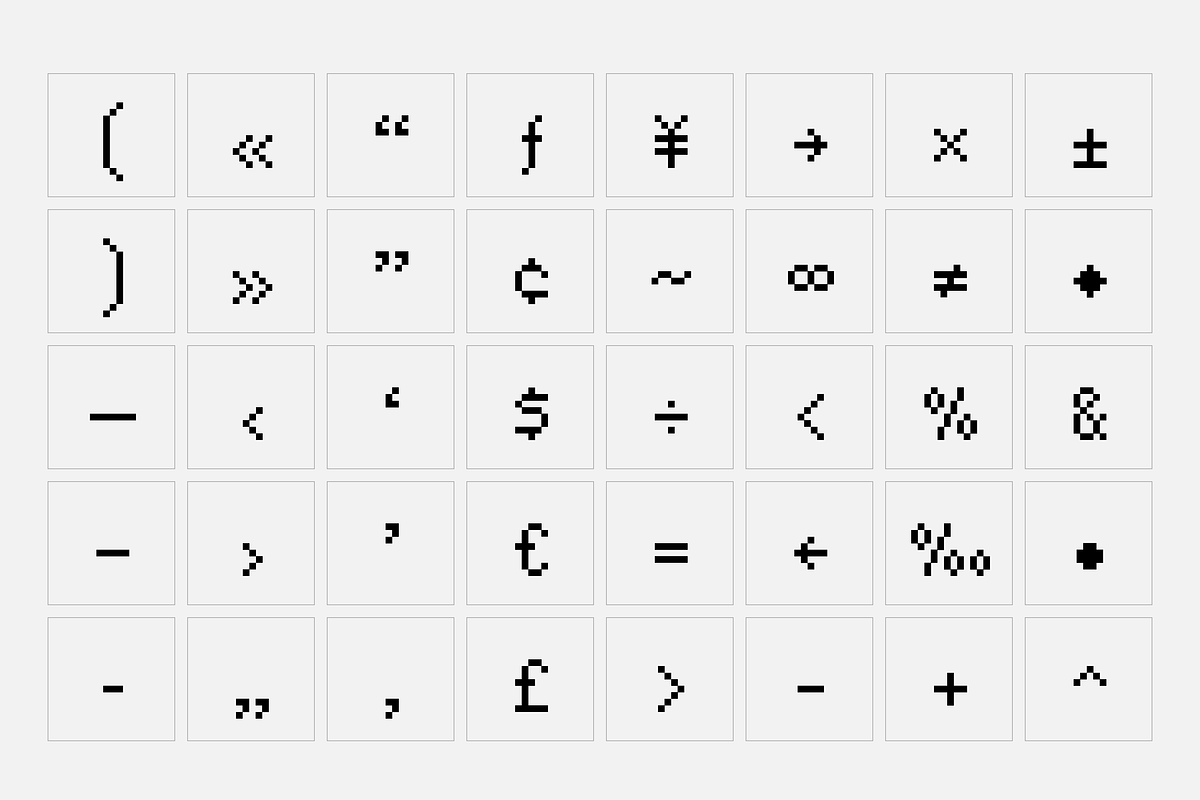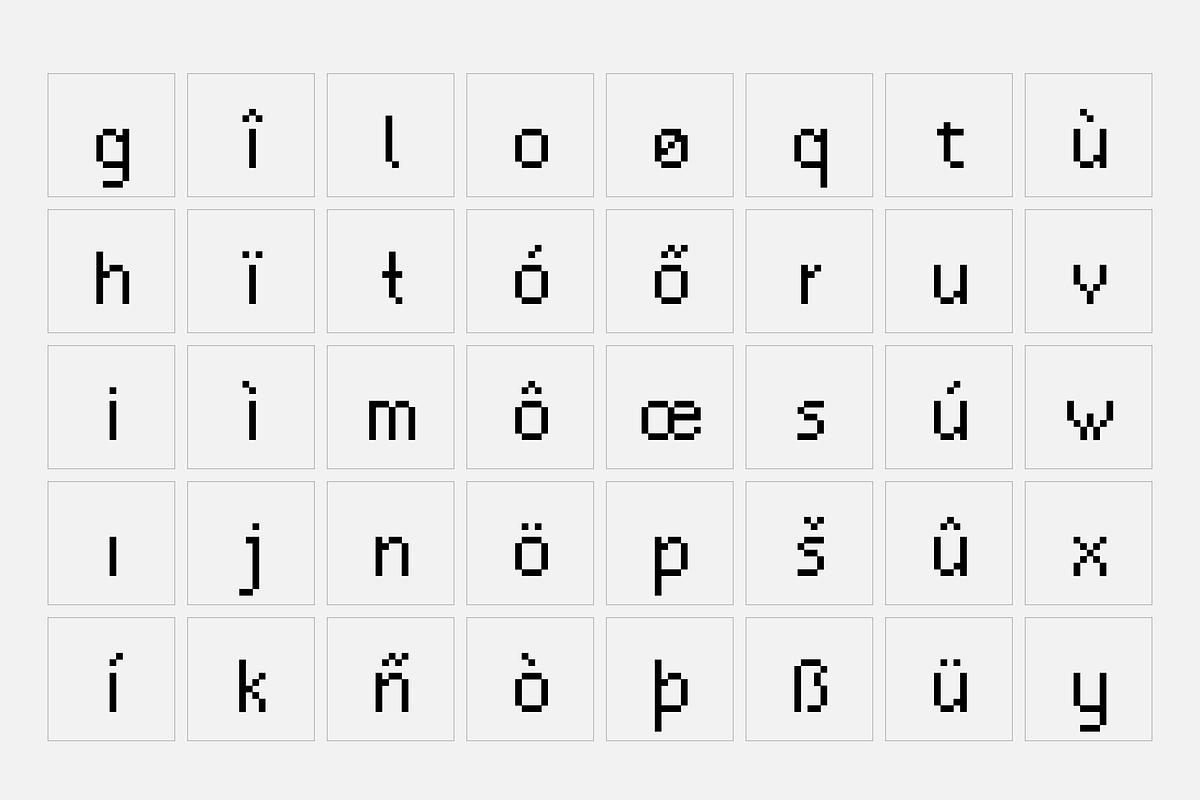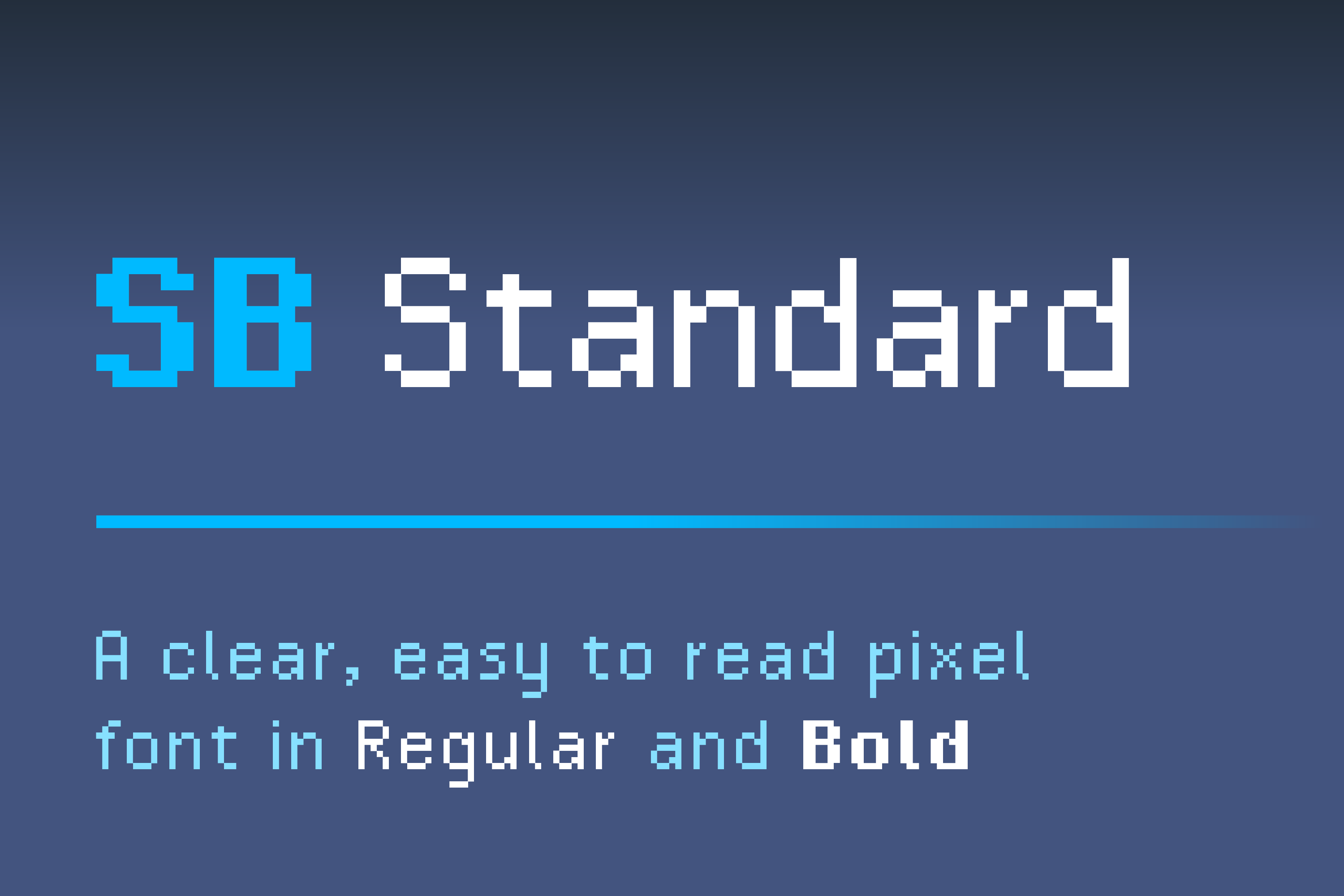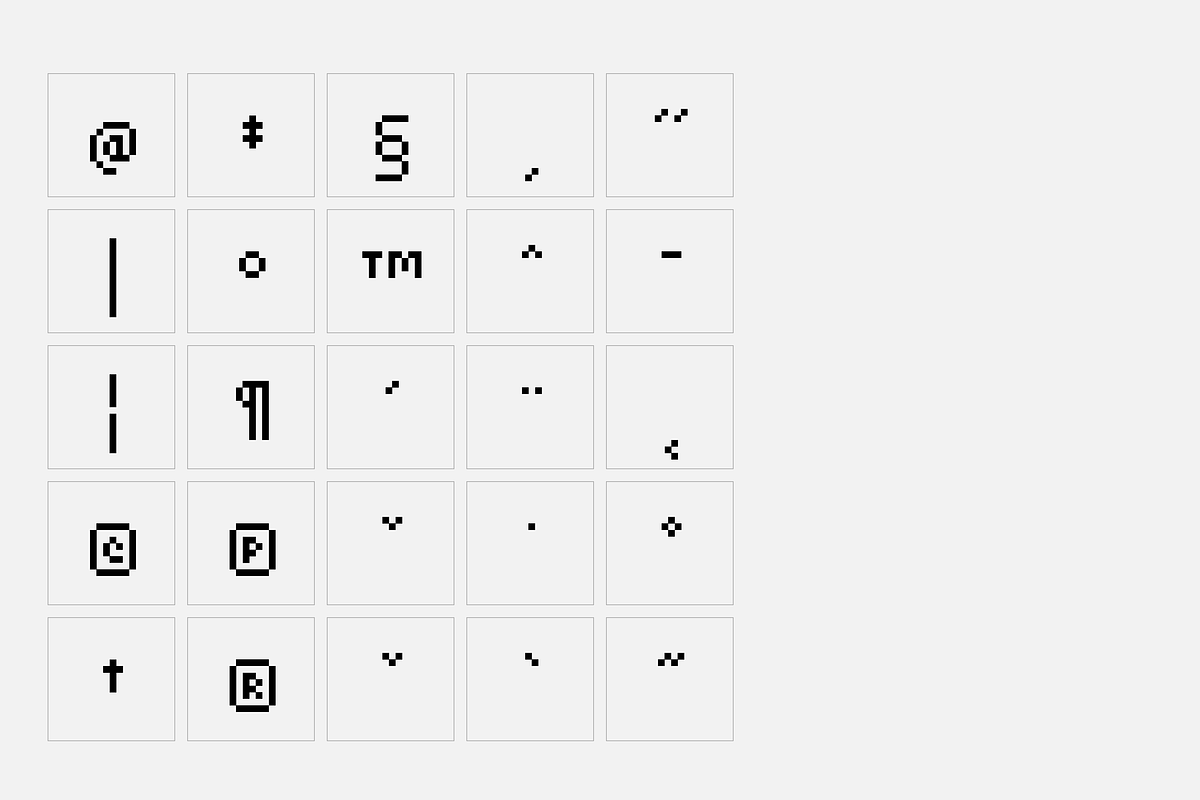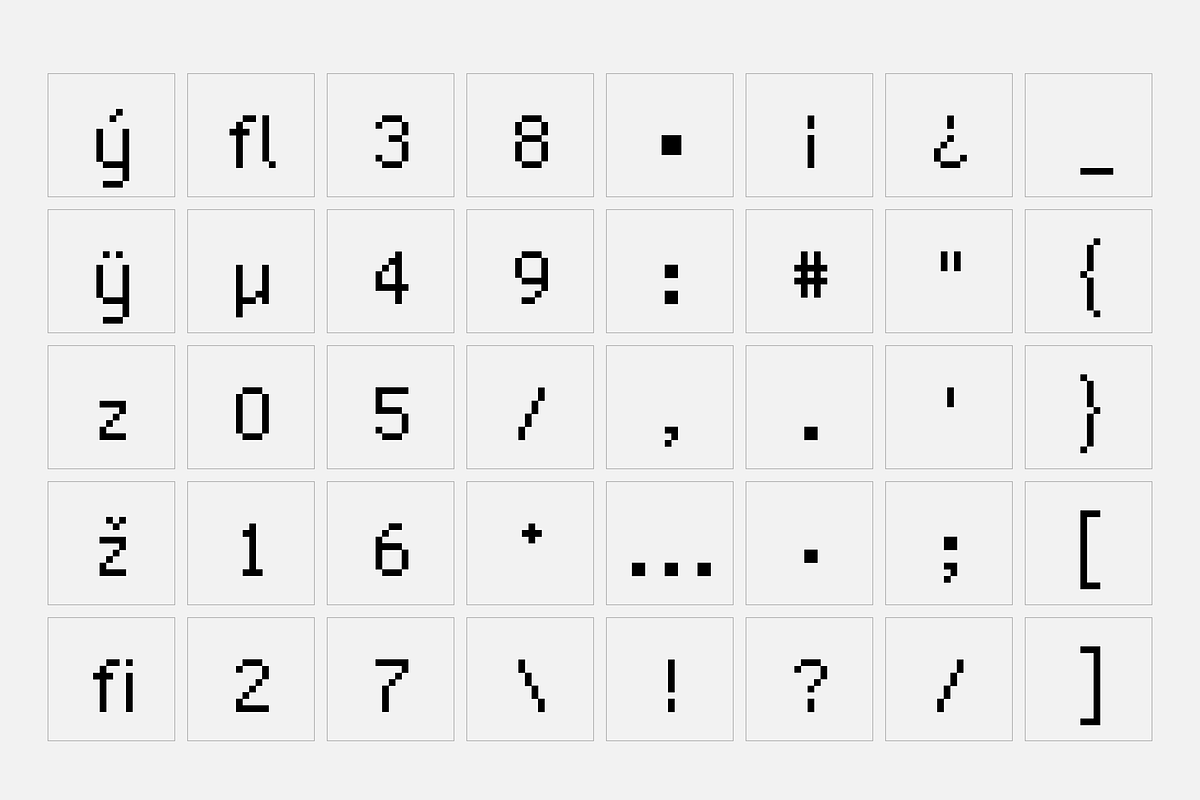
Standard Pixel Font (4 styles)
- Good legibility at small sizes.
- Optimised for use as a pixel font at 10px and multiples of 10px.
SB Standard is a pixel font designed for text and navigation use and is optimised for use at 10px.
It is designed to be both neutral and legible, incorporating techniques learned during the production of SB Liquid, and retains good legibility as a text face. As it was intended more as a text face than for display use, a bold style was also produced.
More recently a rounded pixelfont style was added, opening it up for use as a subheading and display typeface.